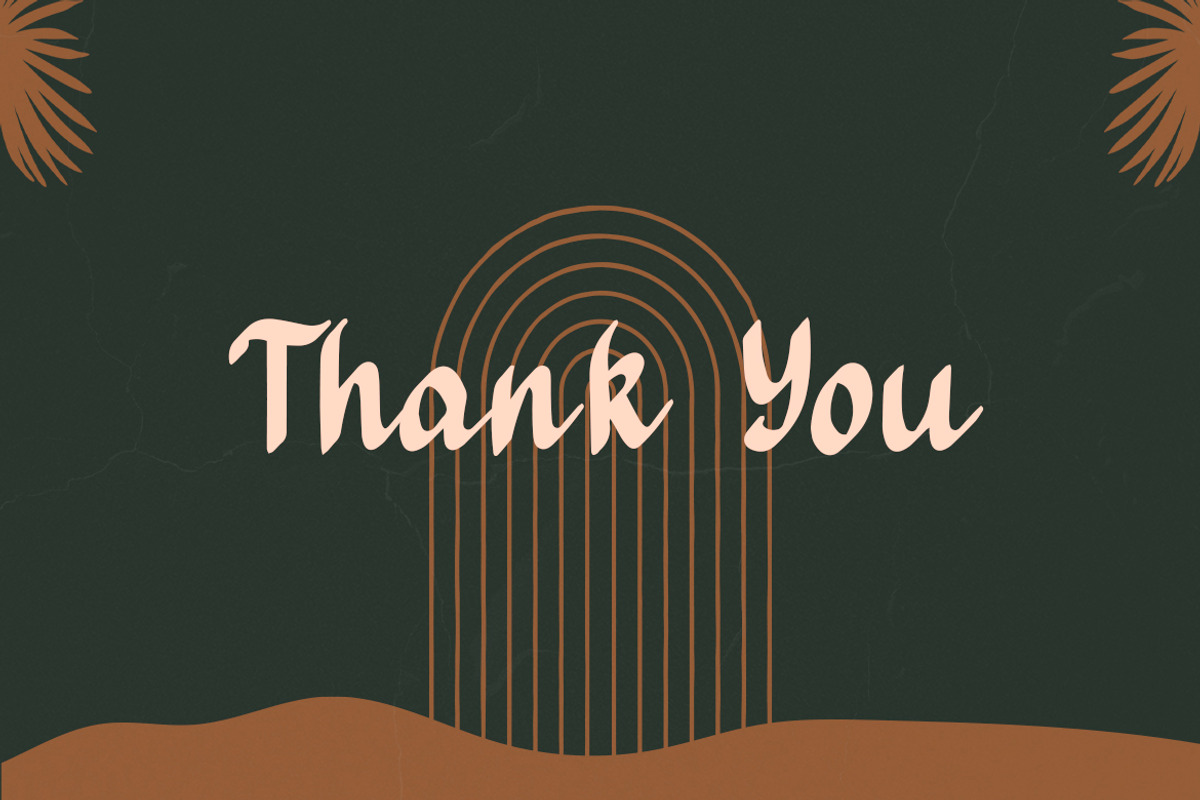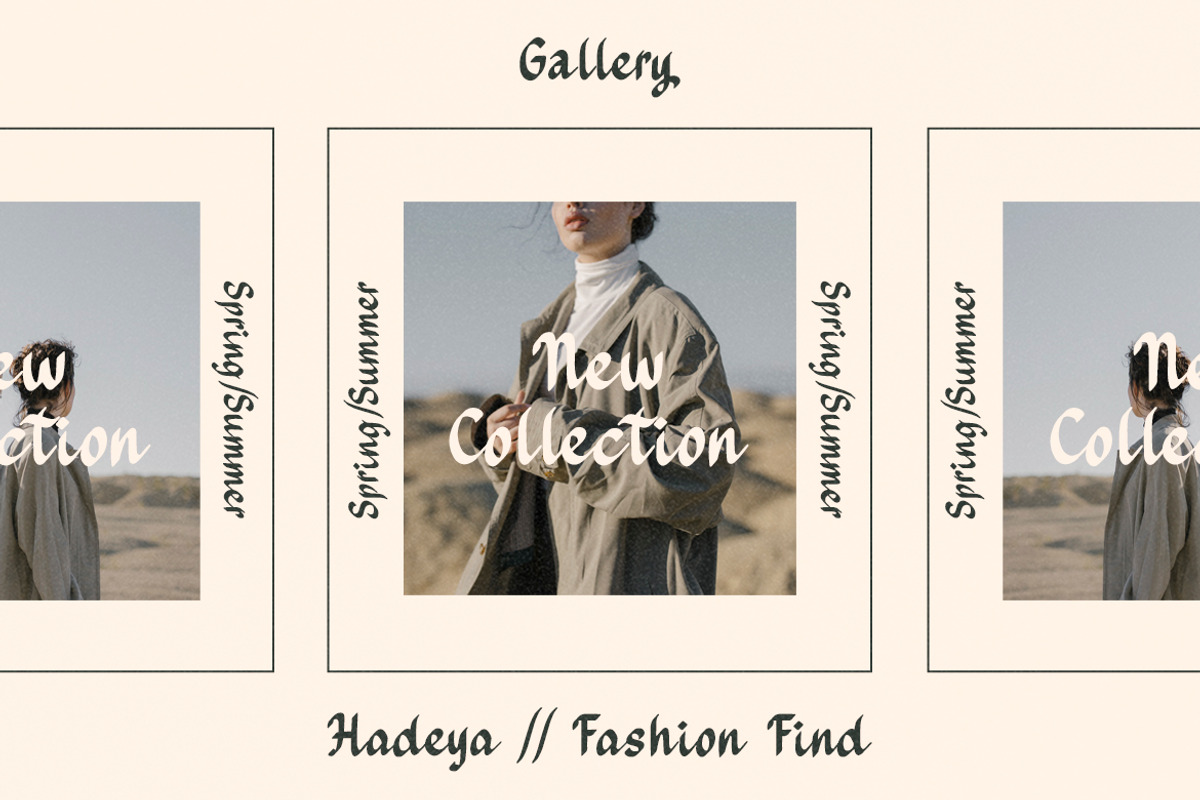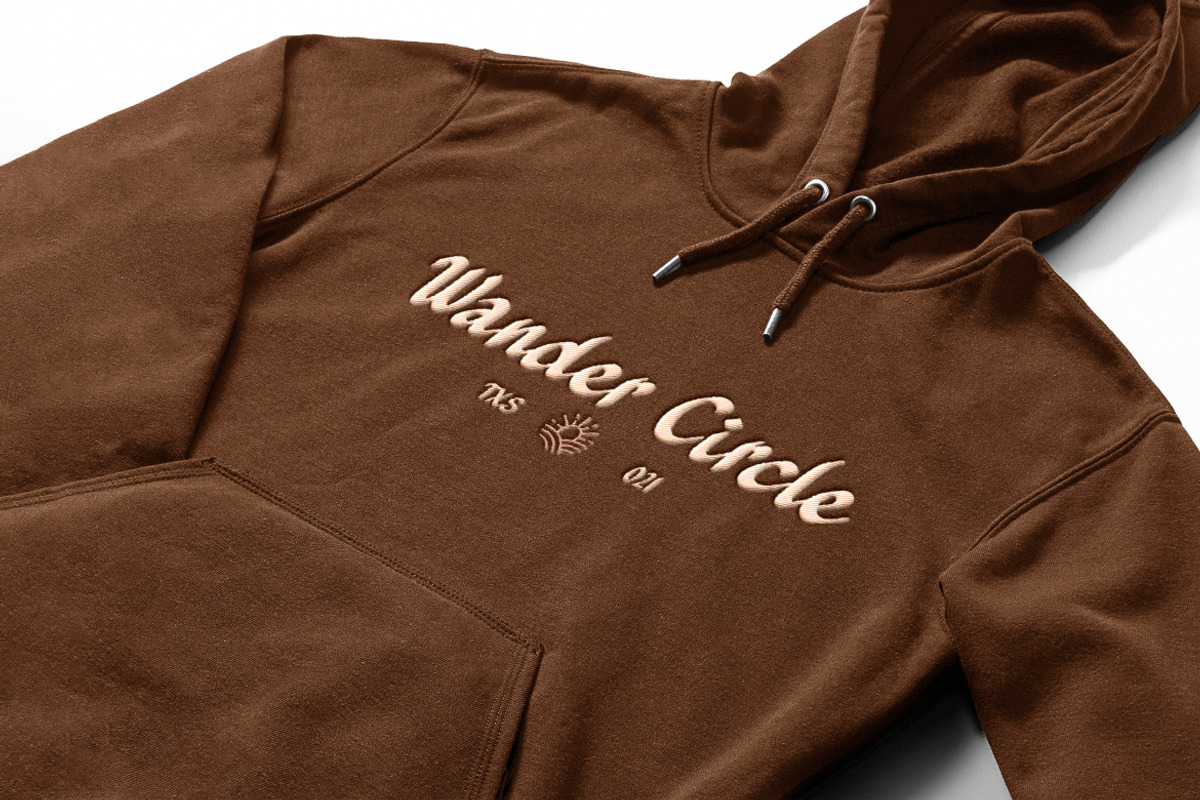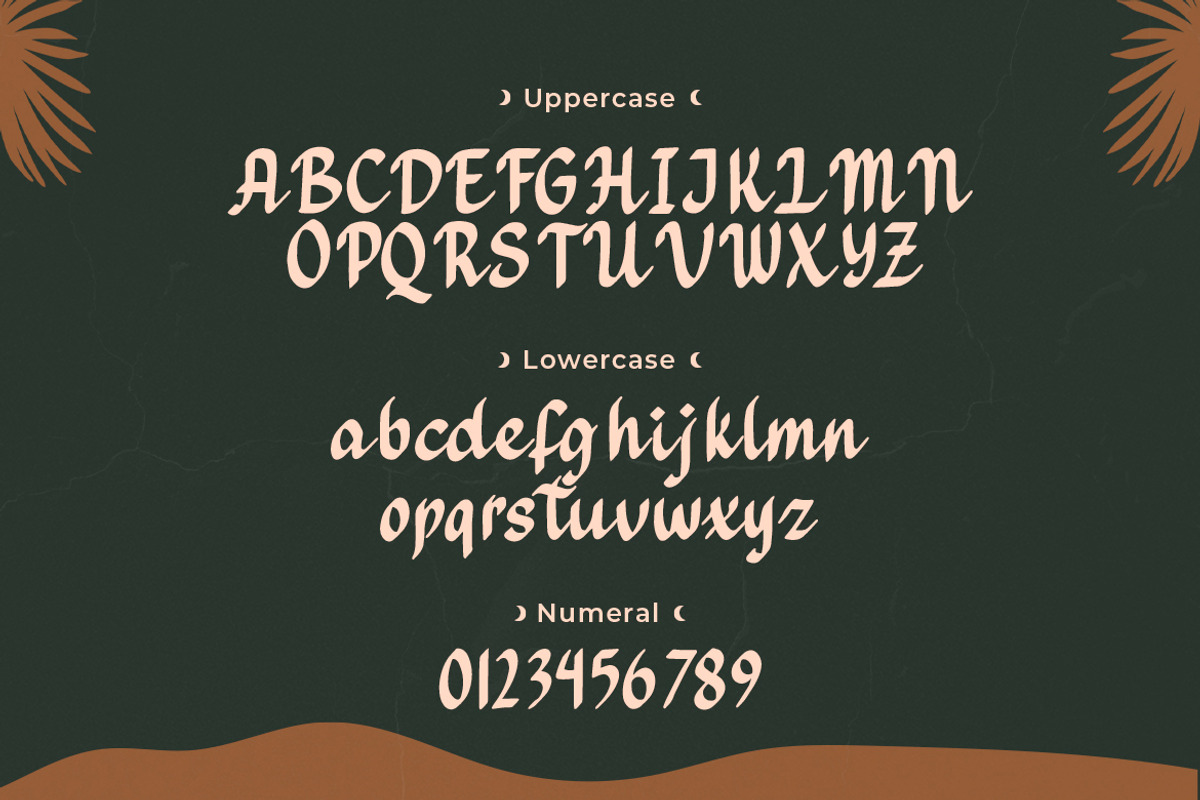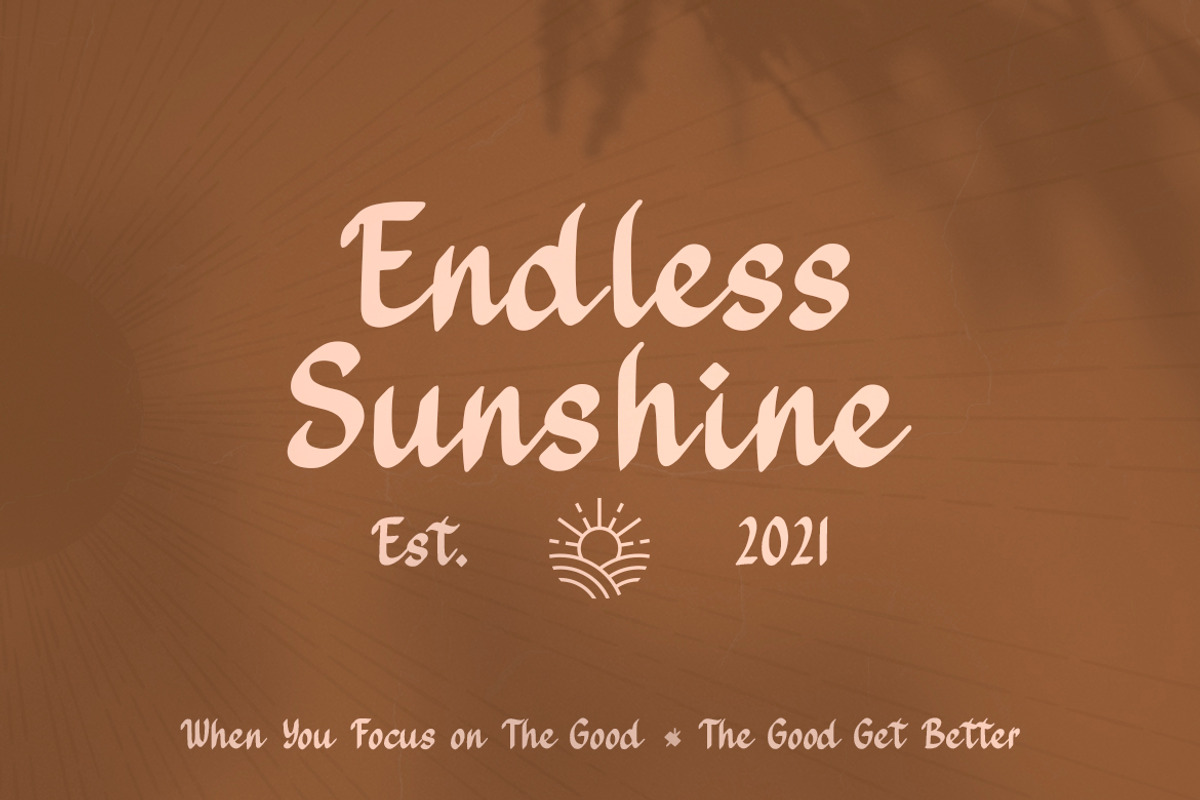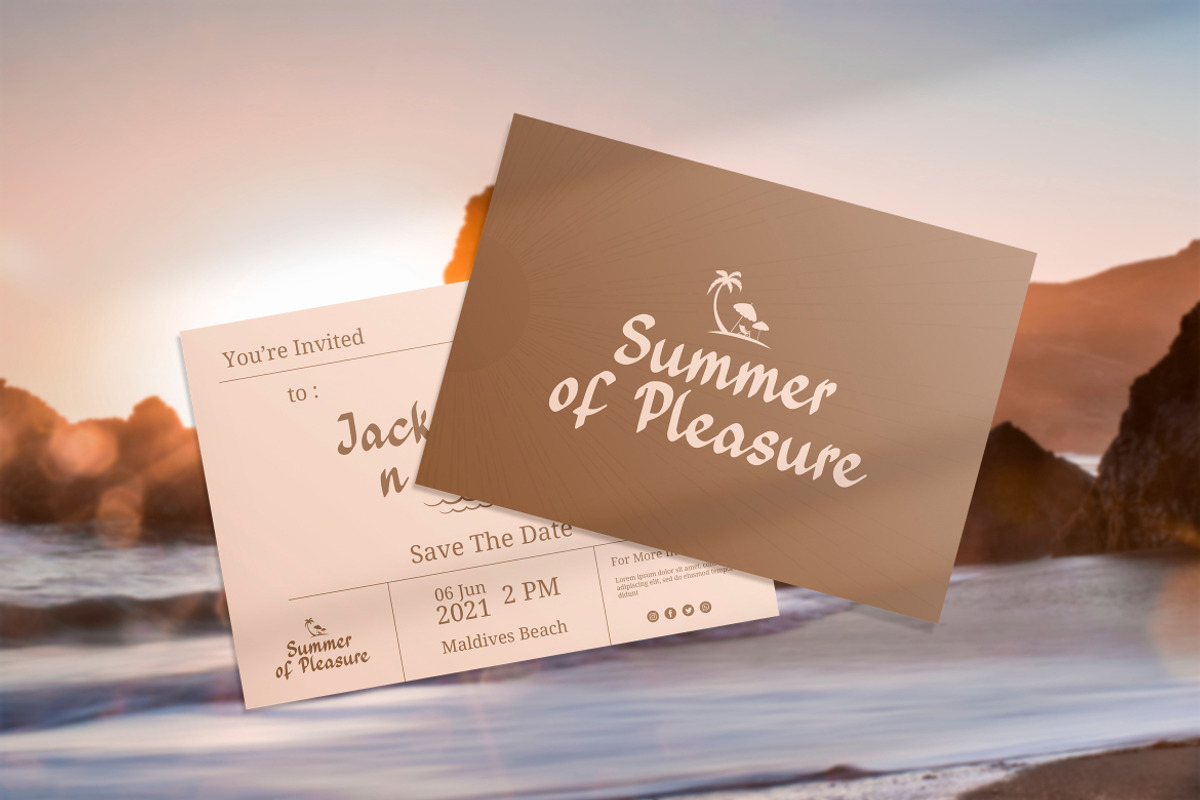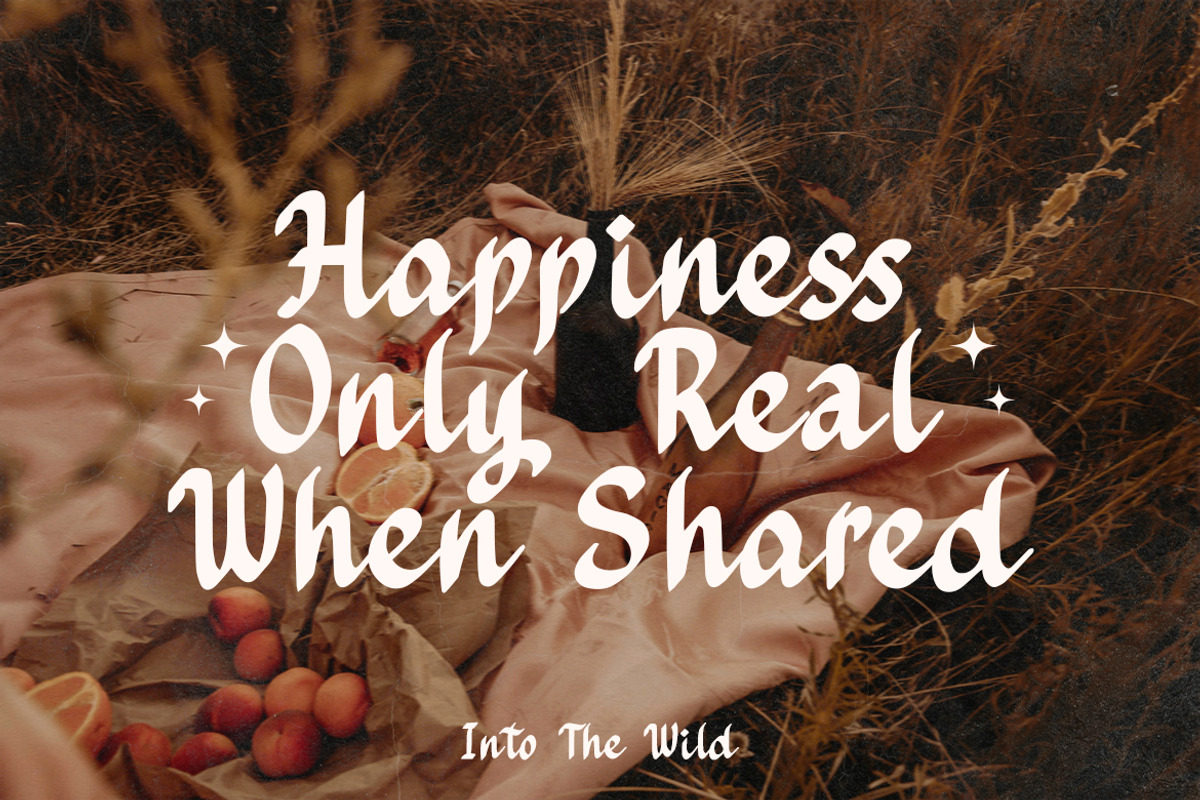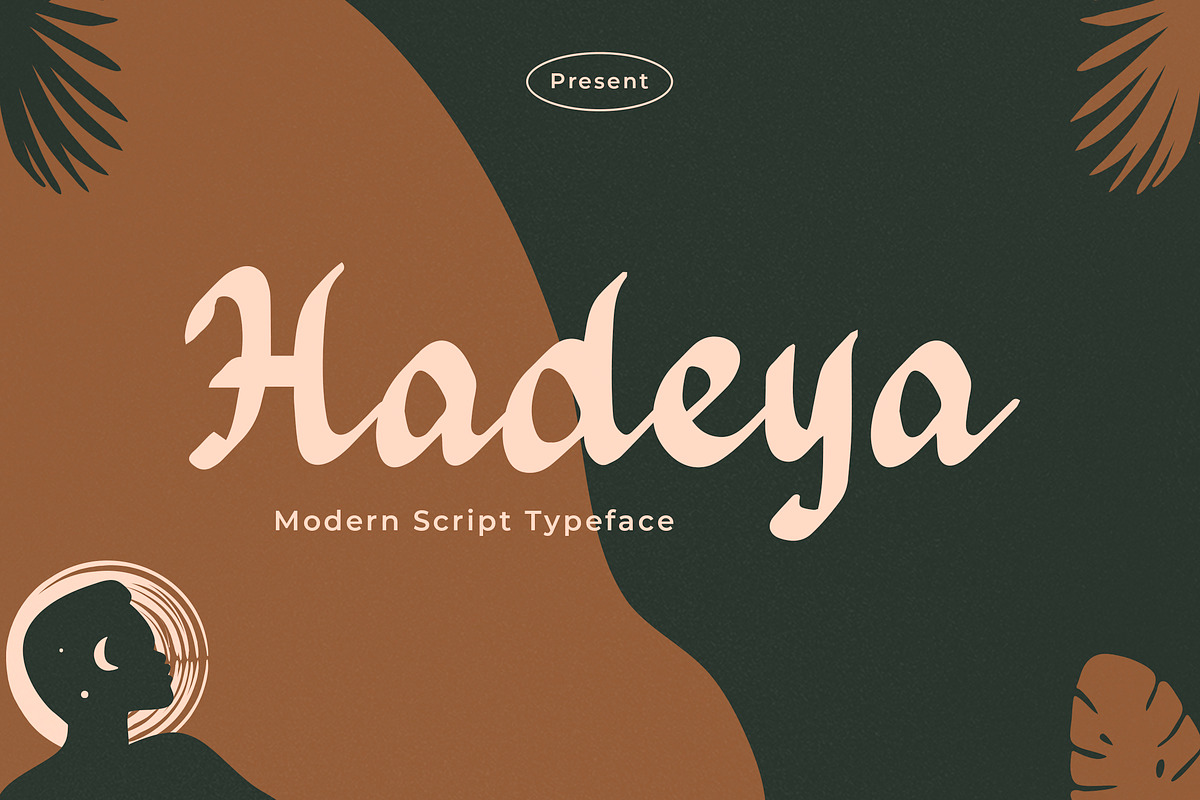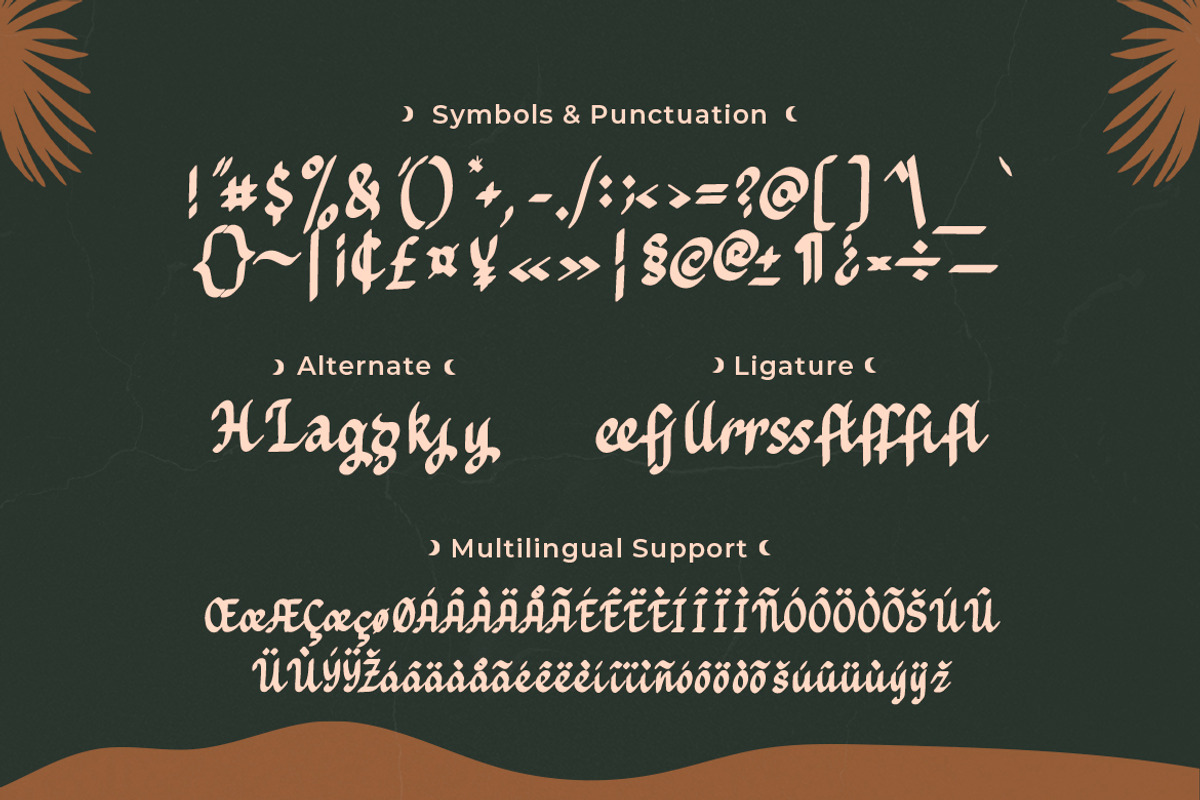
Hadeya - Modern Script Typeface
Hadeya is a modern and beautiful script font. It has a elegant style and is perfect for creating quotes, logos, social media post, clothing, poster, id card, card, and many more.
- Symbols & Punctuation
- Numeral